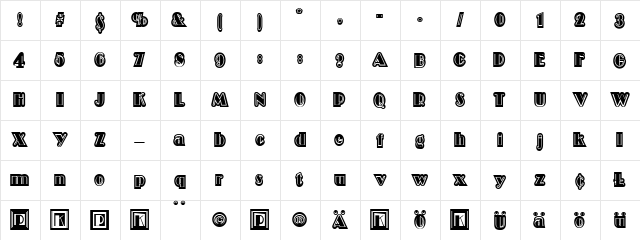
Decollagena Regular
Design Context for Decollagena Typeface
Decollagena is a composed and adaptable typeface that performs quietly and consistently across a wide range of design contexts.